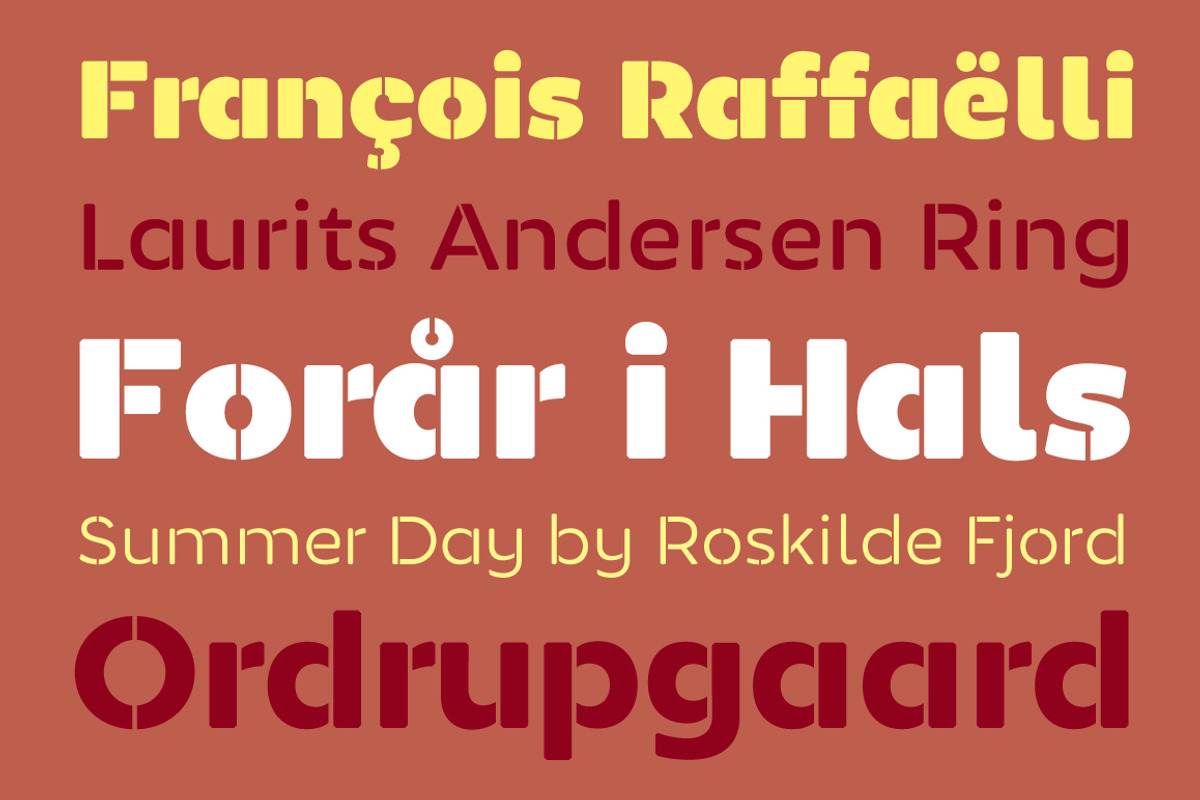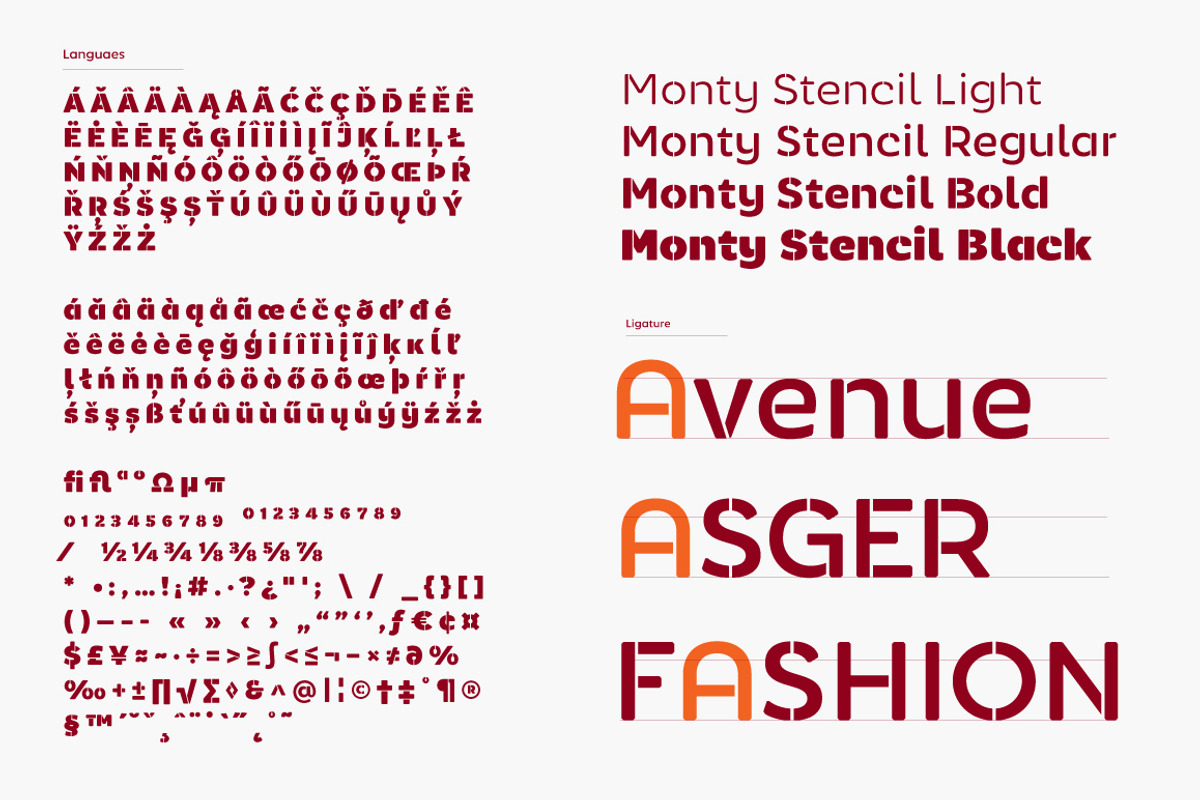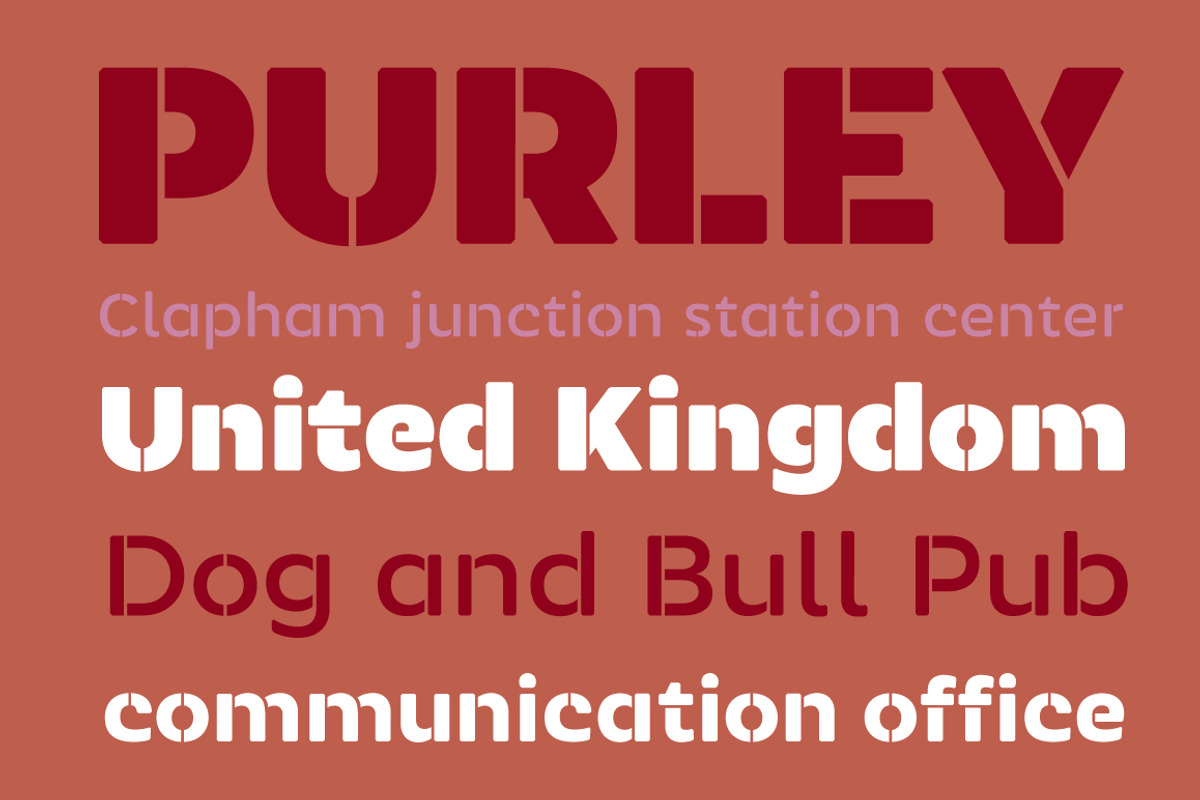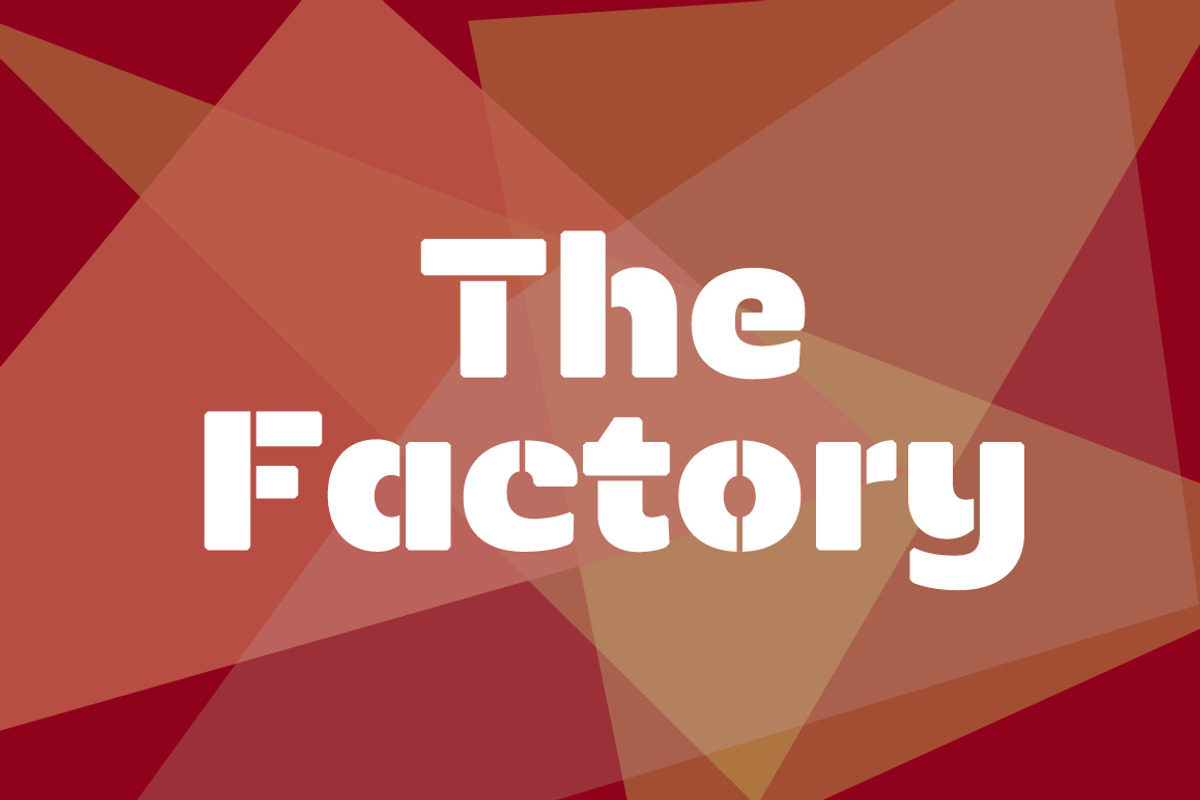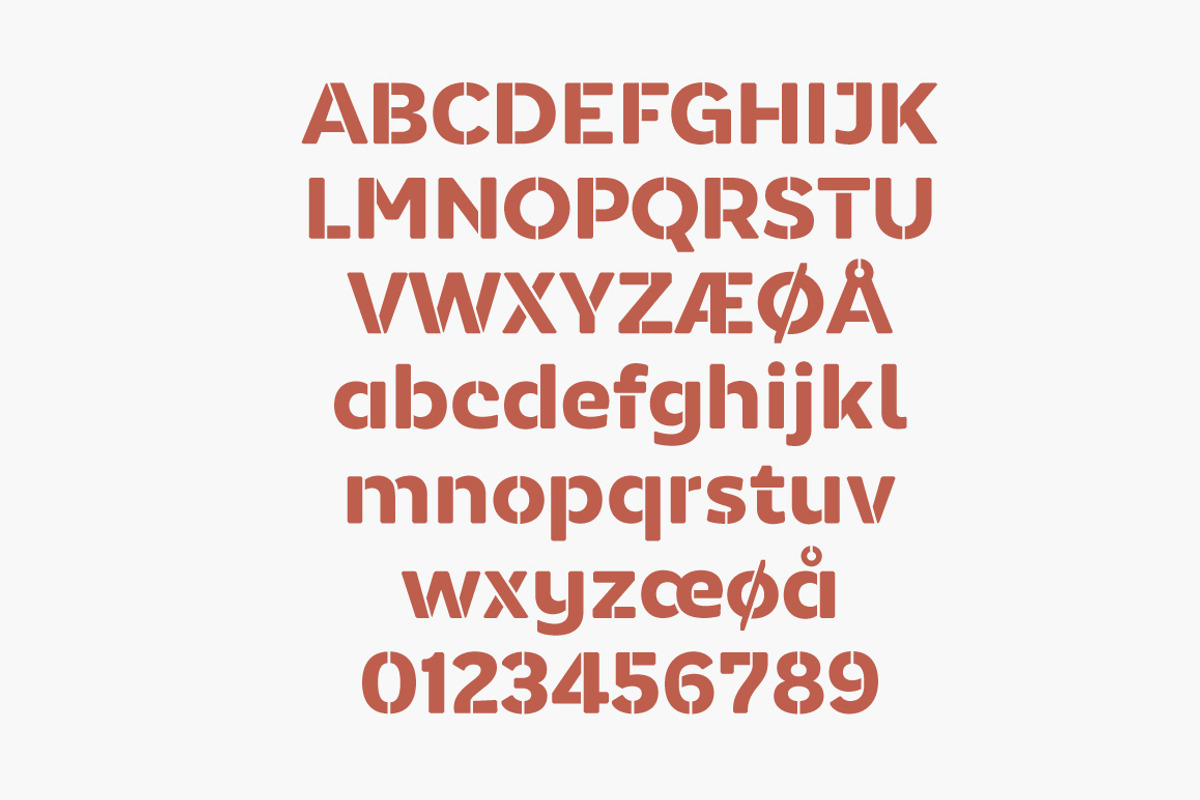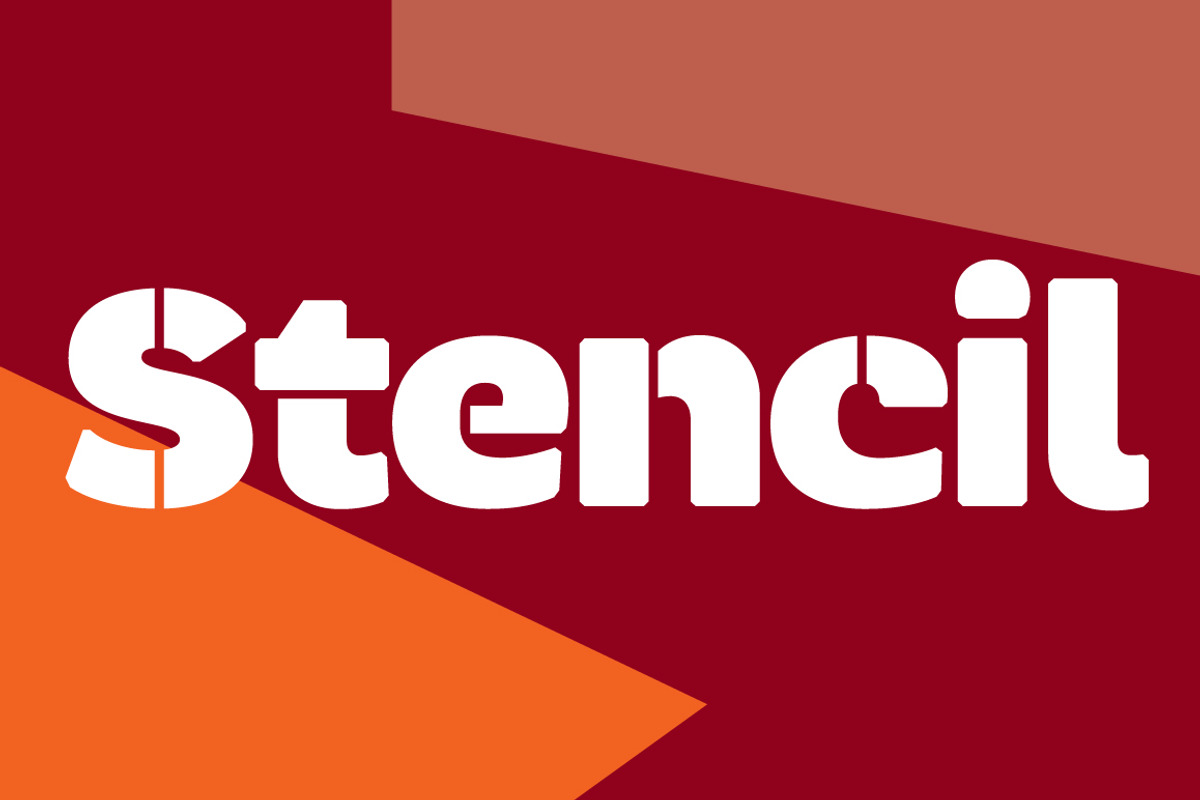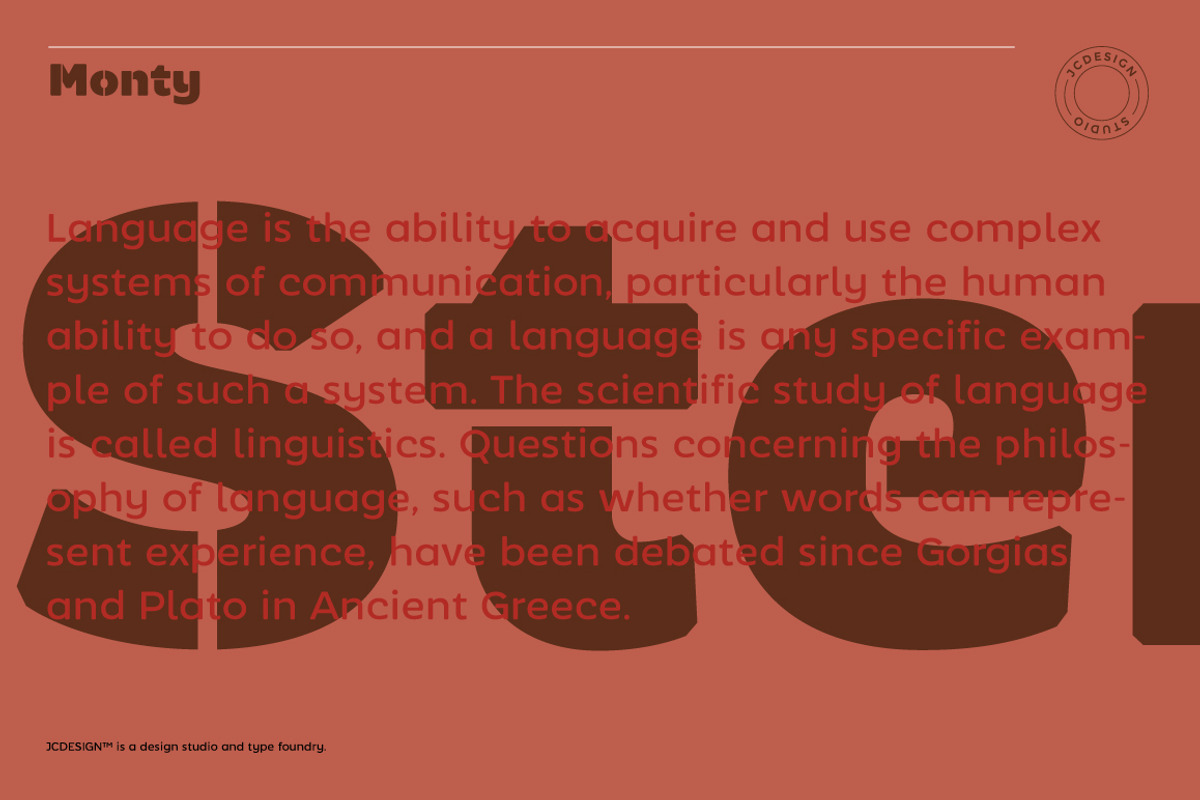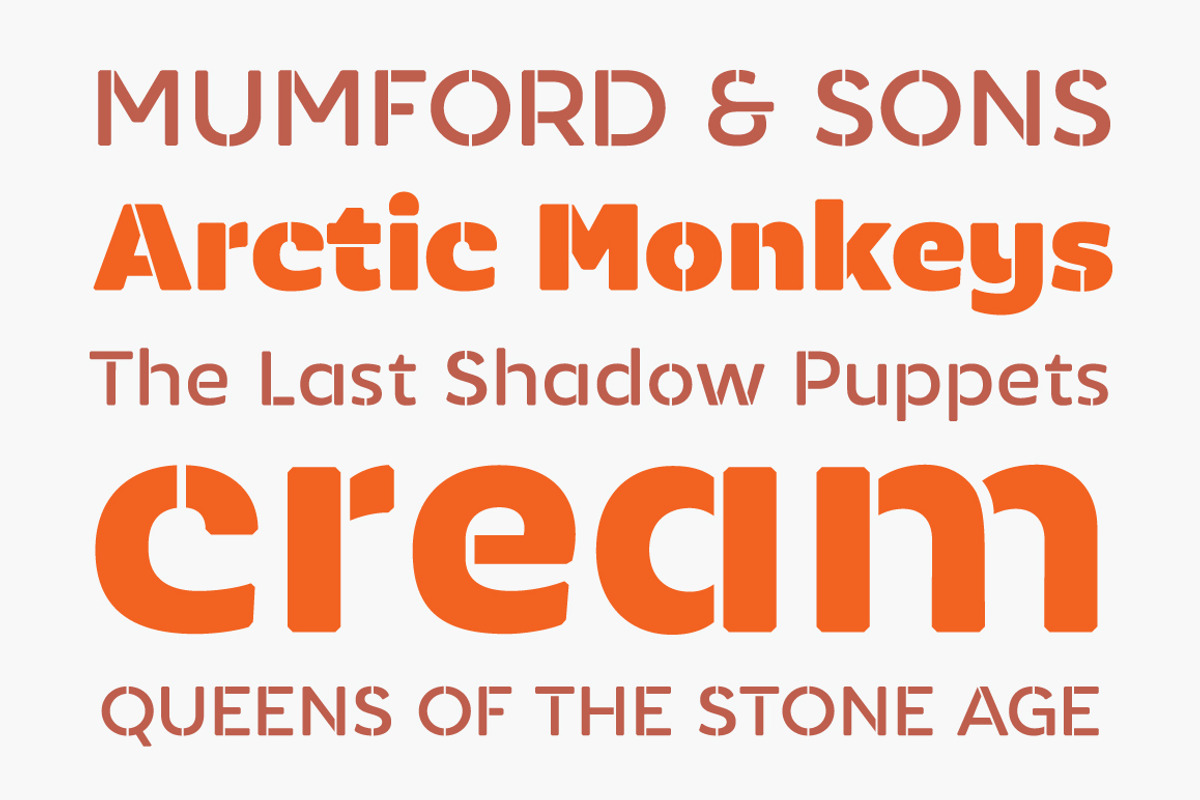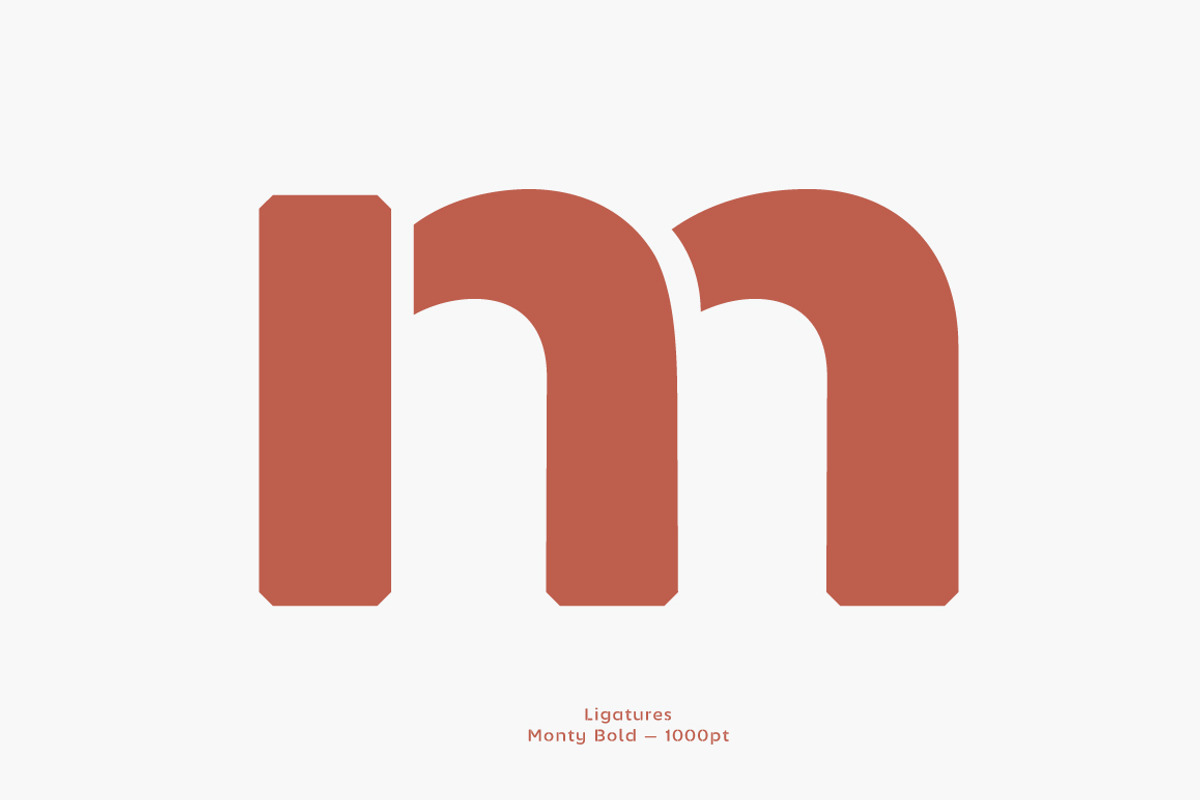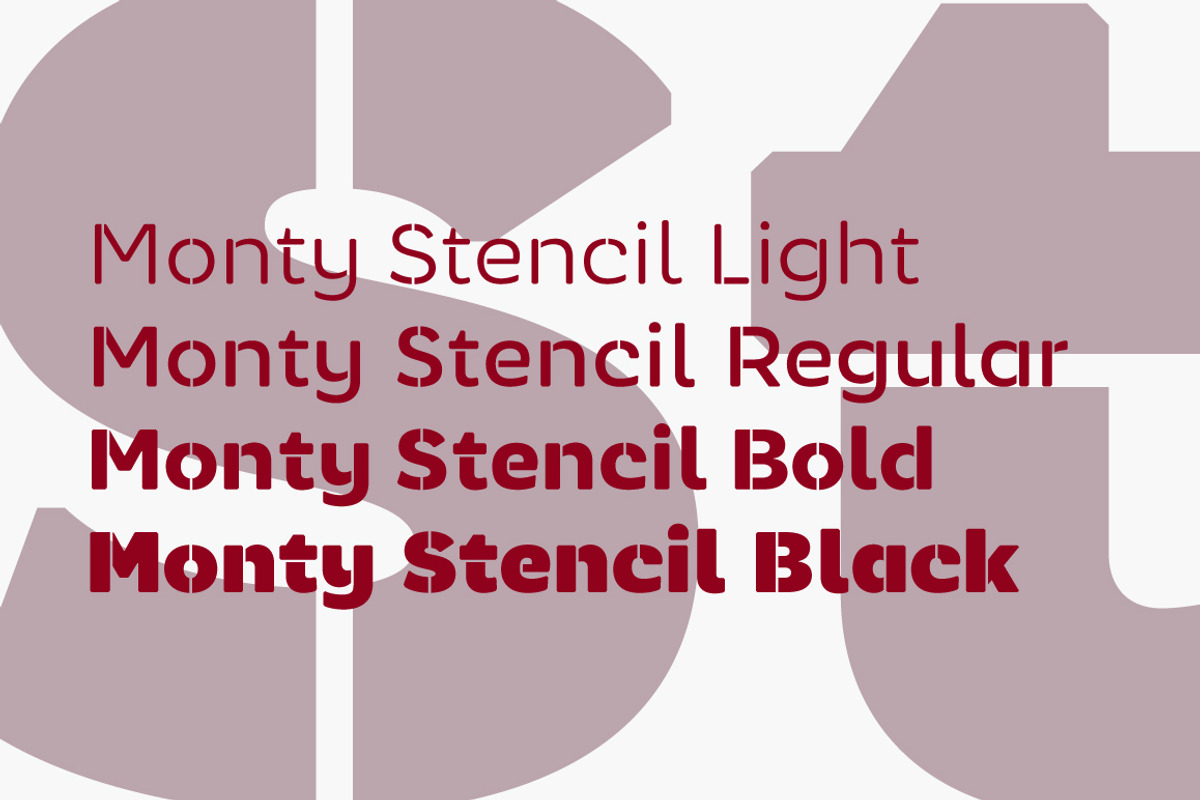
Monty Stencil
Monty Stencil is a font family characterized as grotesque sans serif. The dynamics of the stencil letters G, K and A adds an additional sharpening and a heavy rounded softness to all of scripture and provide extra versatility, which makes Monty an excellent tool for a variety of purposes, from signage, posters, posters for branding and editorial design. The font is designed for various use. Set it to task for marketing, packaging, editorial work, branding and even projects on the screen.